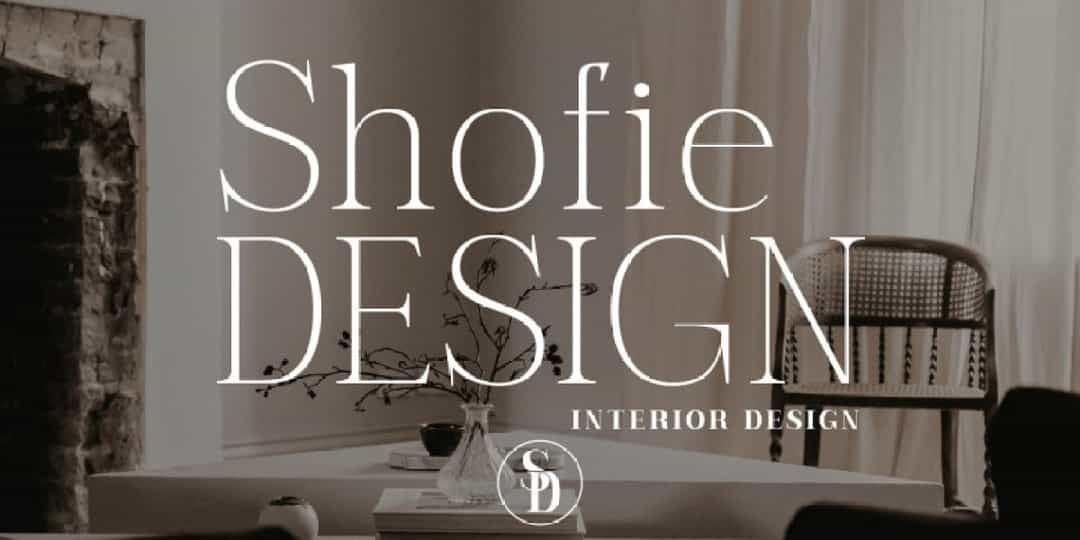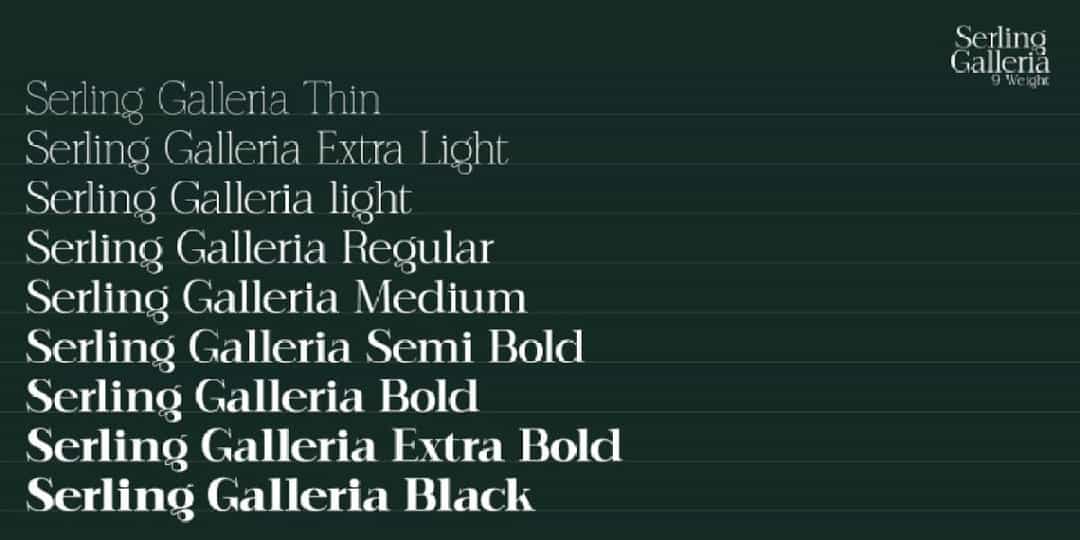
Serling Galleria is an elegant traditional serif font which conveys high-end art and imagination. Boasting clear letters with contemporary flair, Serling Galleria infuses your work with sophistication. Use its font family to craft projects featuring sophisticated yet elegant design features.